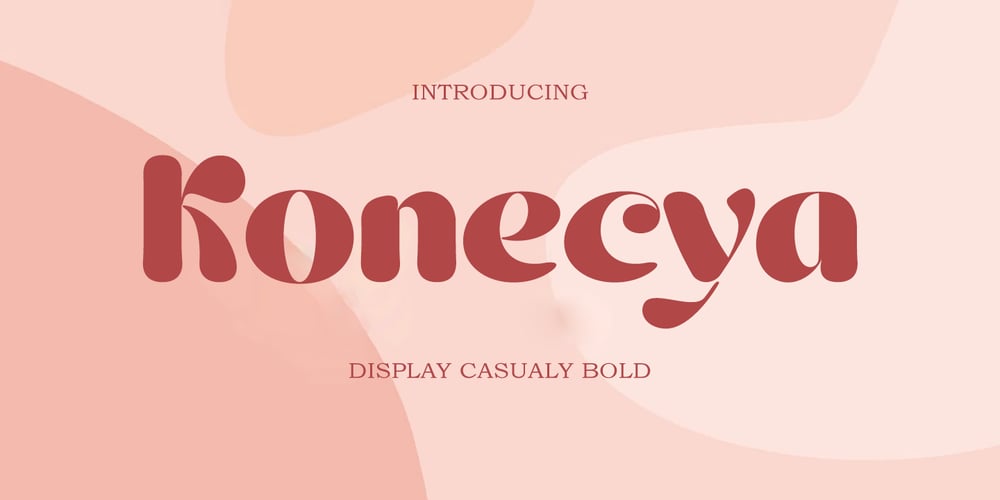
Konecya Font Family was designed by khaidir and published by Gatype. Konecya contains 1 styles and family package options. Konecya Featuring Display totality and elegance. One of my most recent first releases, naturally drawn with pinpoint accuracy. Konecya has the perfect amount of simplicity and subtlety for your next project. It perfectly represents the retro and vintage aesthetic. I recommend this font for your next logo, invitation, and home decor project that needs a succinct alternative combination touch!Include Formats:Konecya appears with strong characters available:Get inspired by the image above and feel free to share with me what you get by using this font.